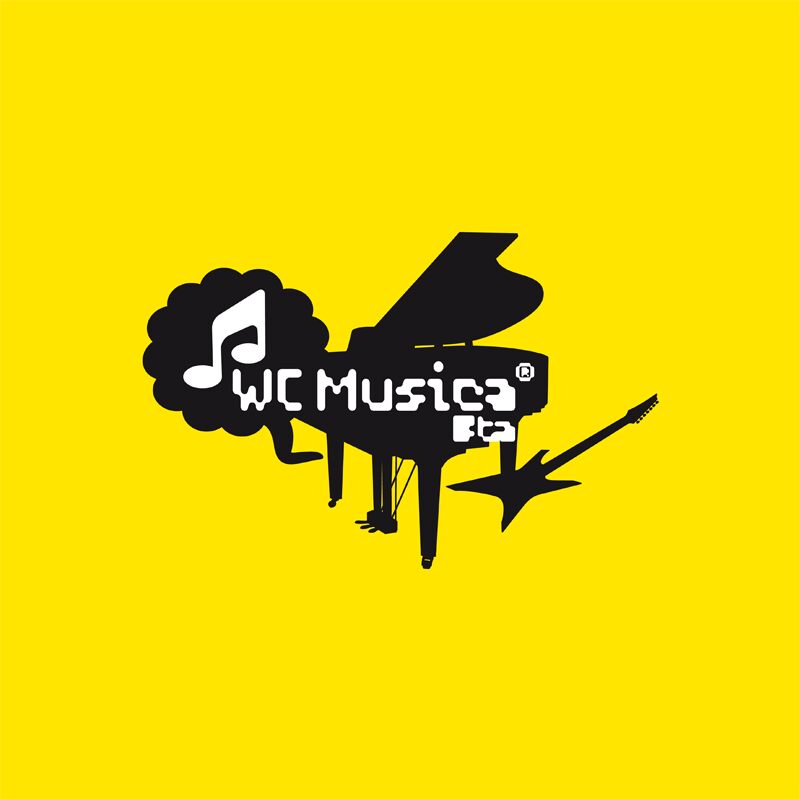
WC Musica Bta by WC Fonts is a free music dingbat font built from solid silhouettes of instruments and performers. Its icons use simplified contours and small cutout details to distinguish keys, strings, valves, and mallets.
Music teachers, performers, and venue owners will find it useful for lesson sheets, concert posters, and event programs. The pictograms can also shape merchandise and record packaging. Their recognizable instrumental forms can become badges or repeating motifs in a music brand.